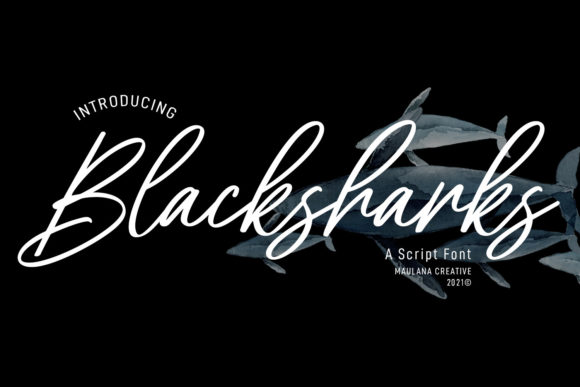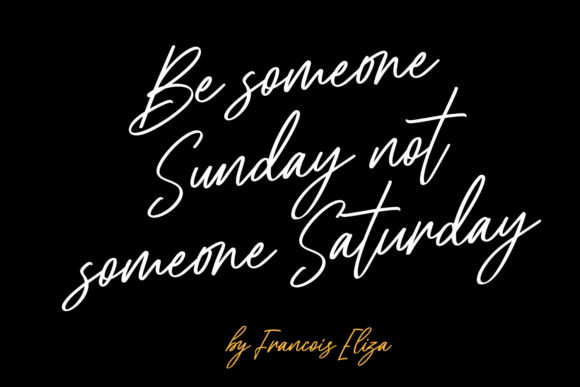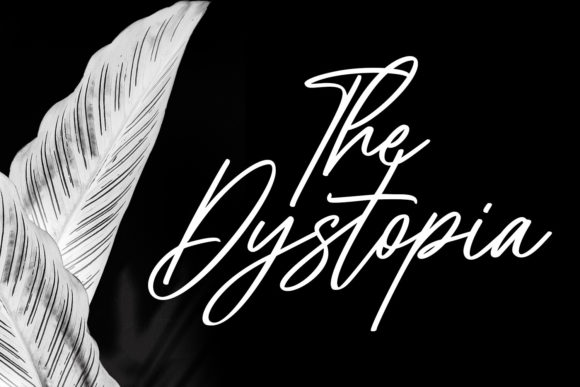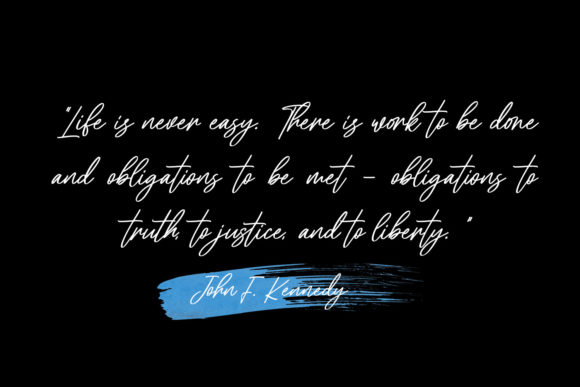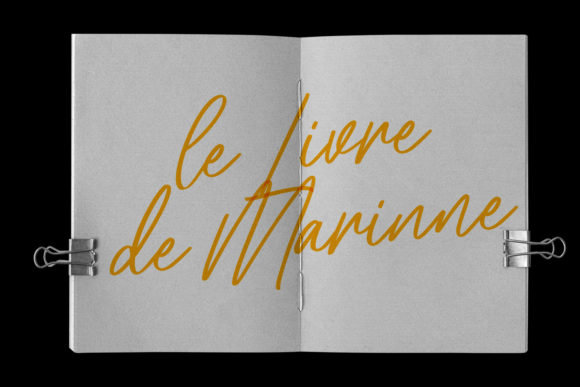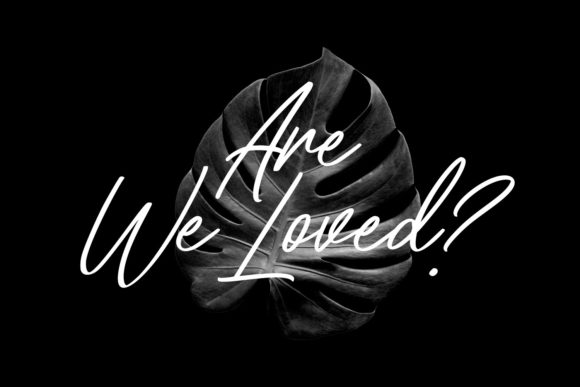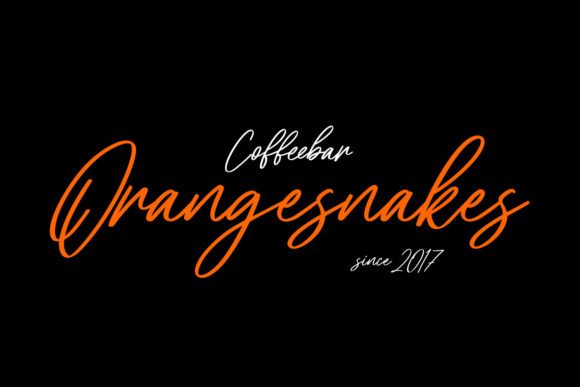
About Blacksharks Script Font
Blacksharks Script is a relaxed script font featuring charming, playful characters that seem to dance along the baseline. Add this font to your most creative ideas, and notice how it makes them stand out!